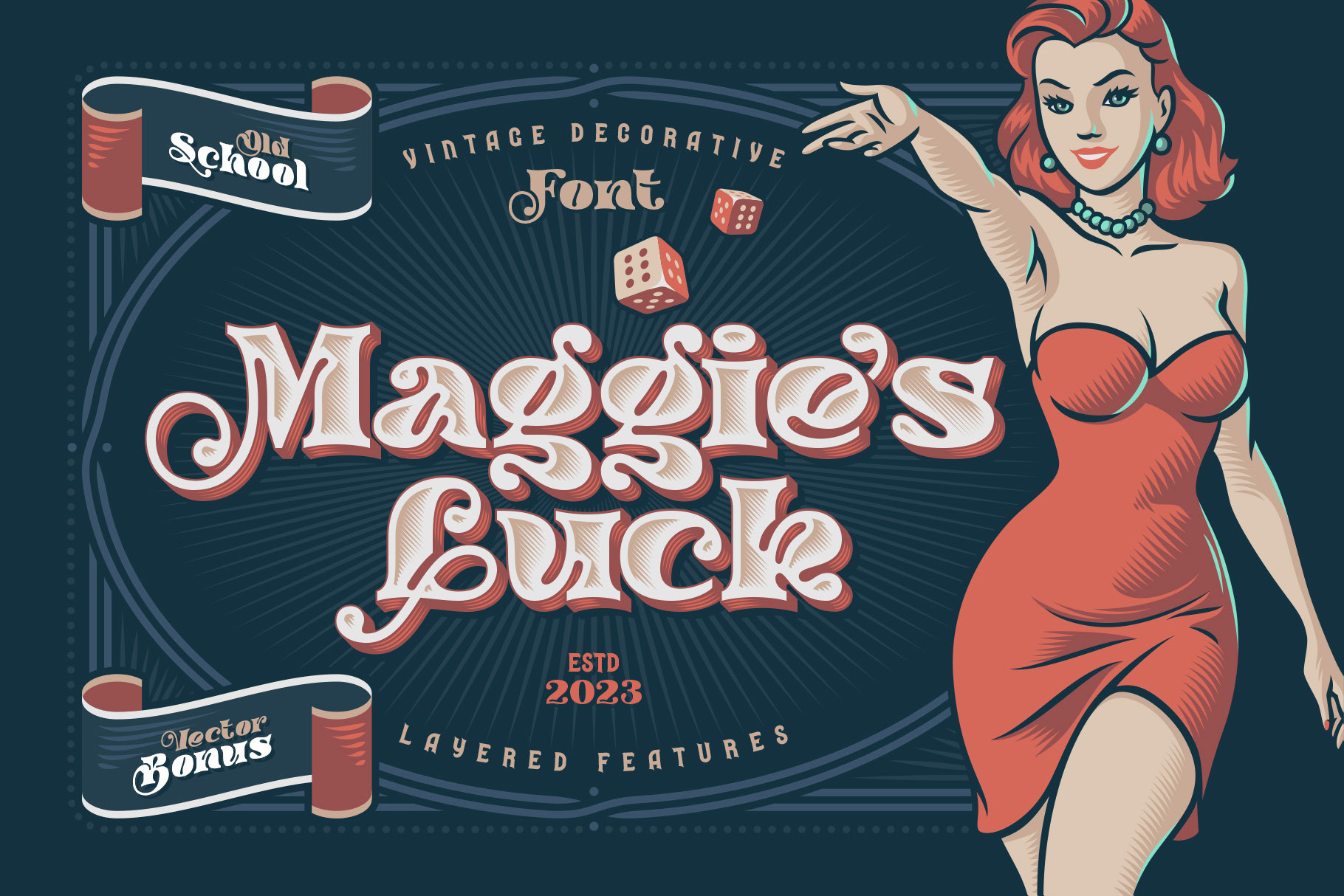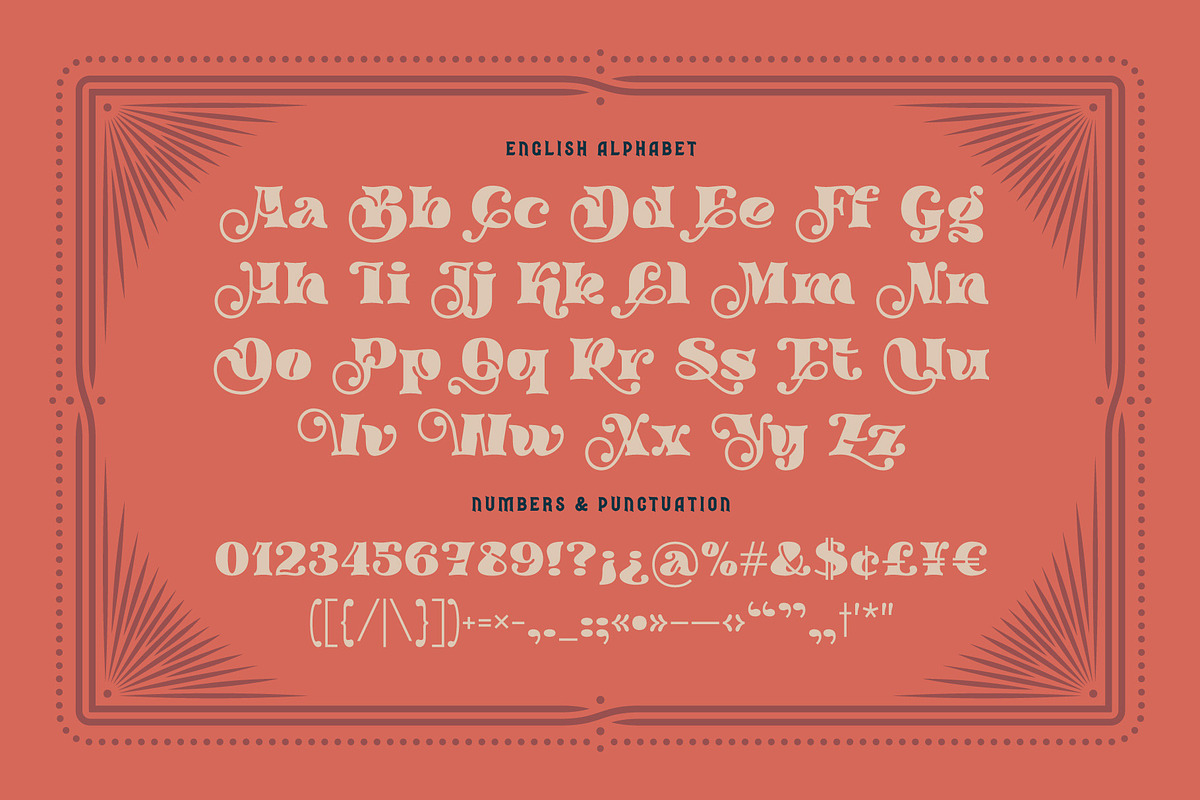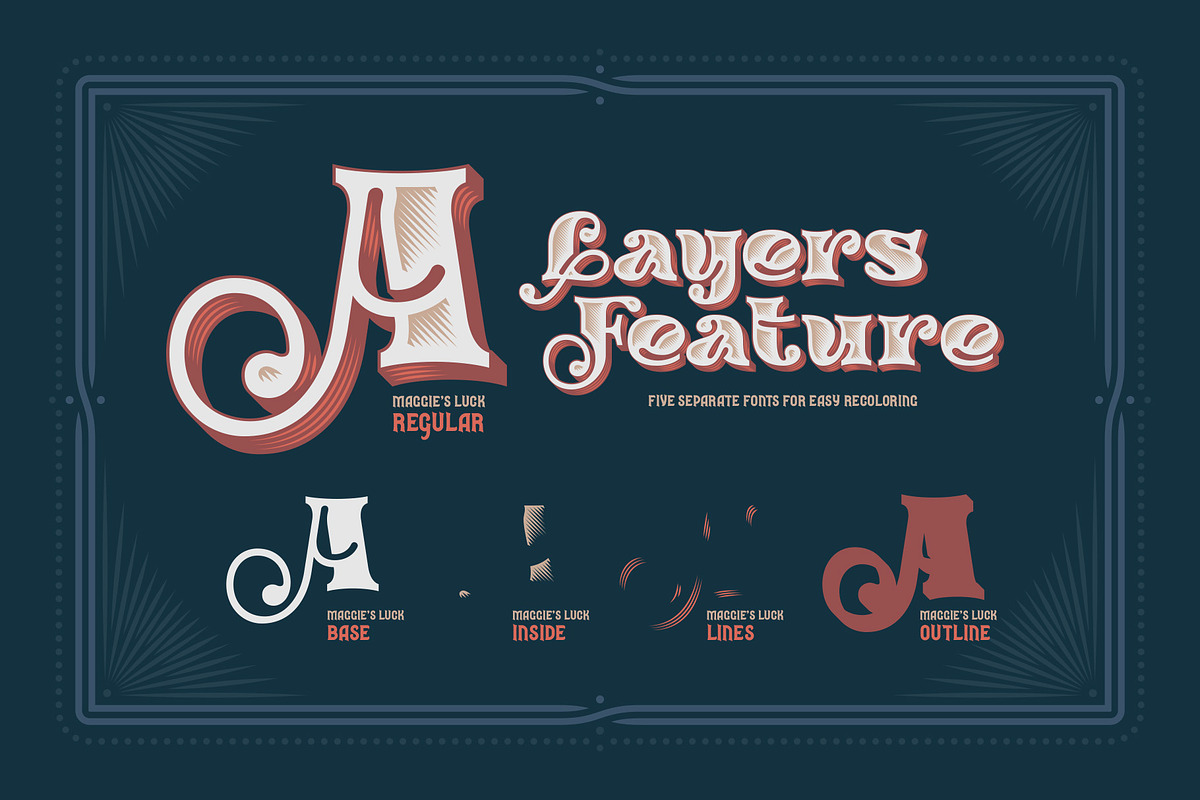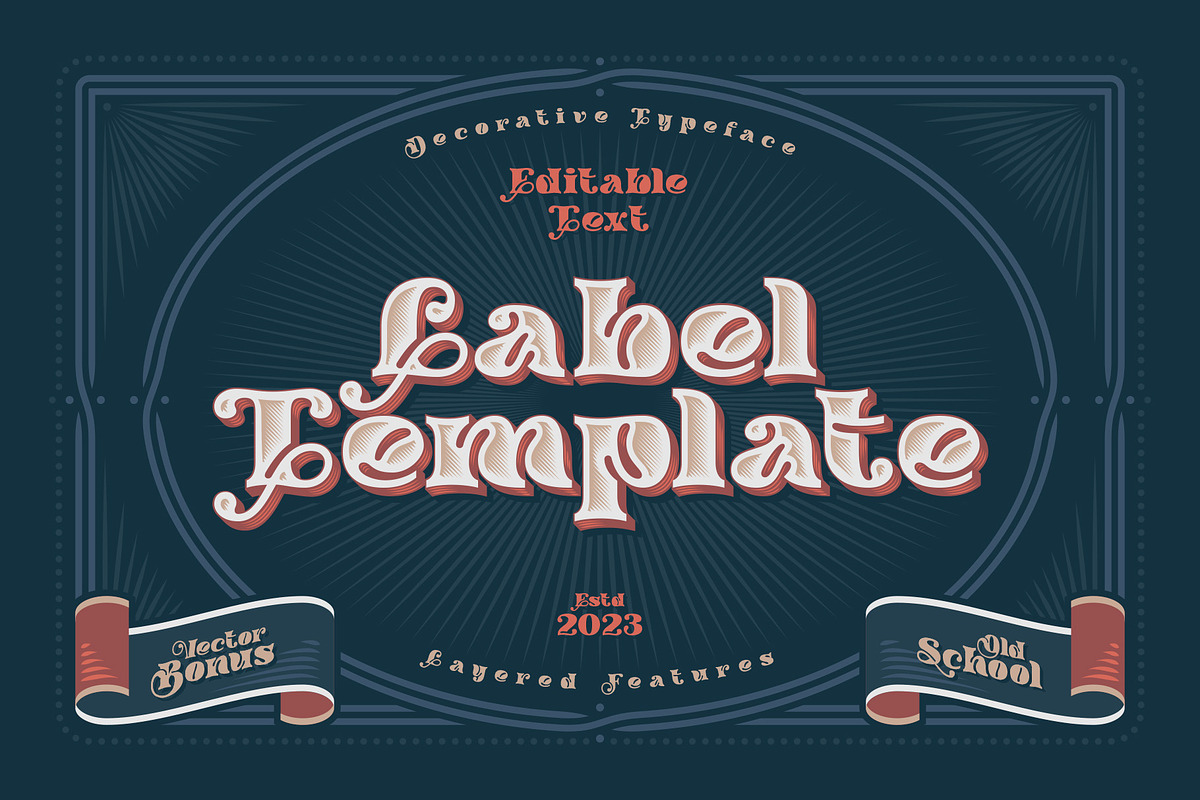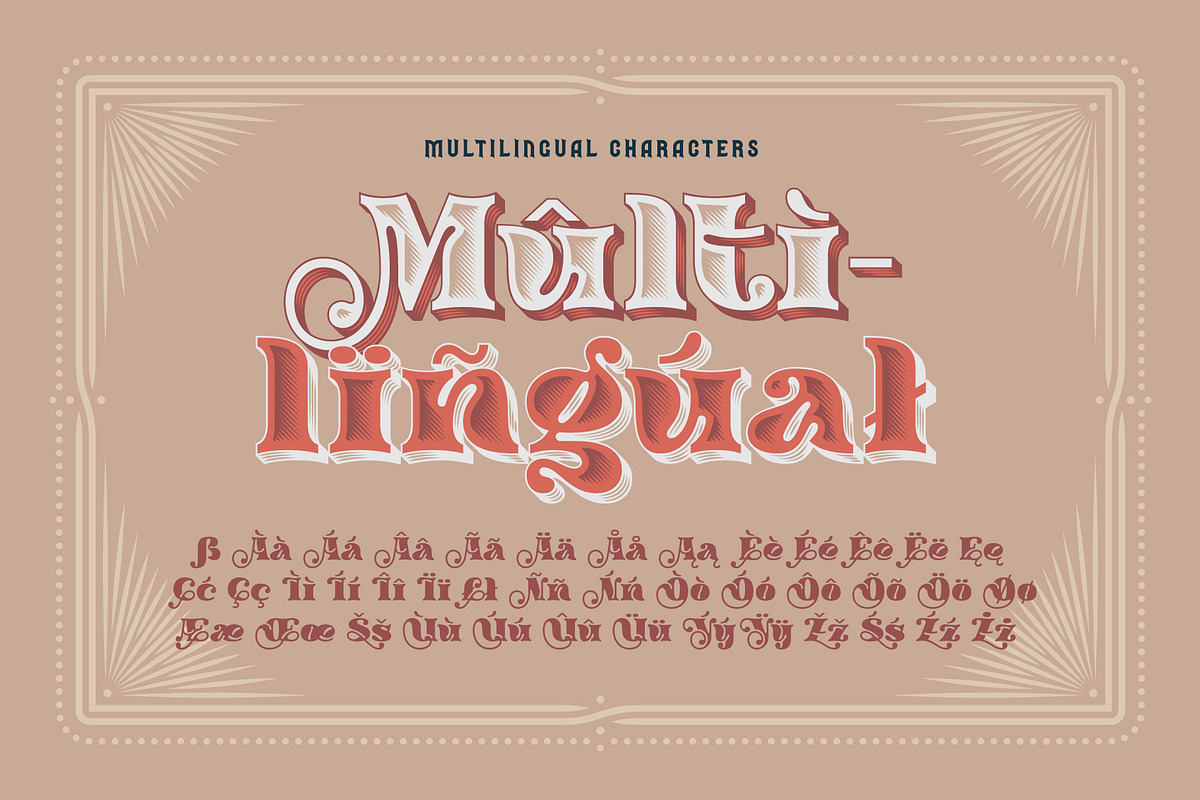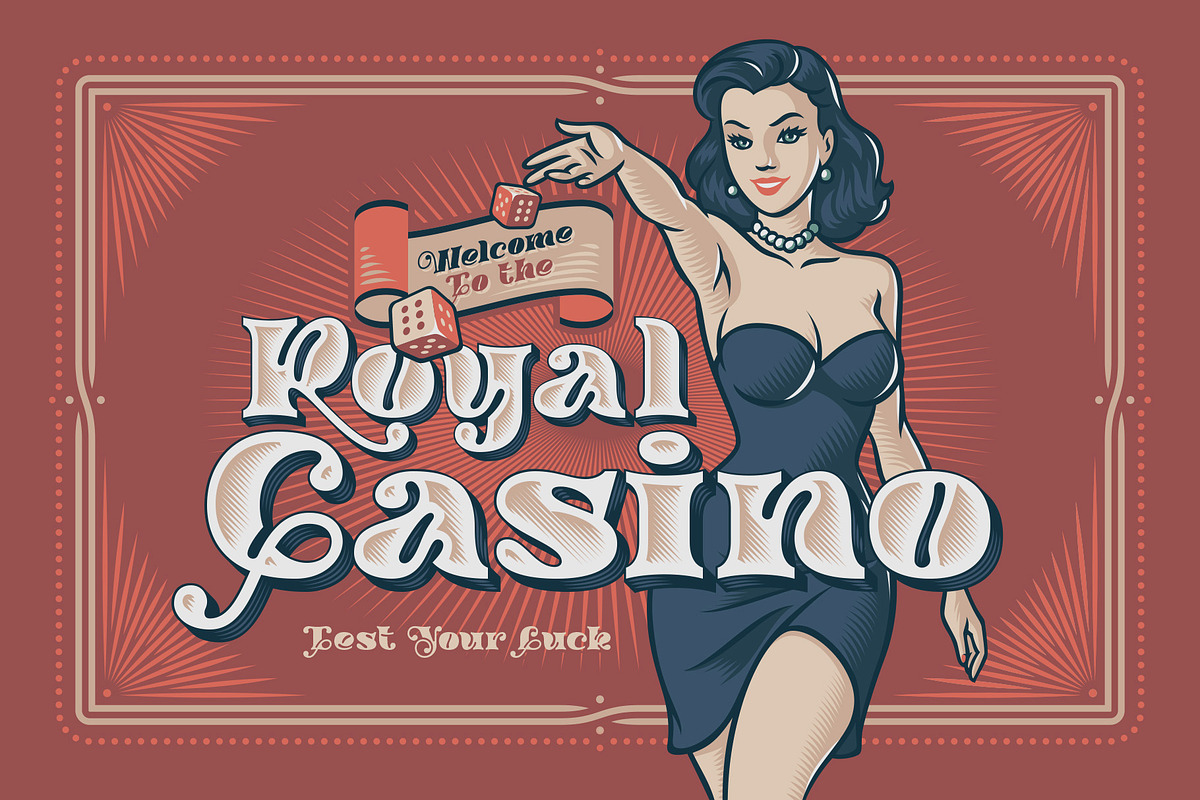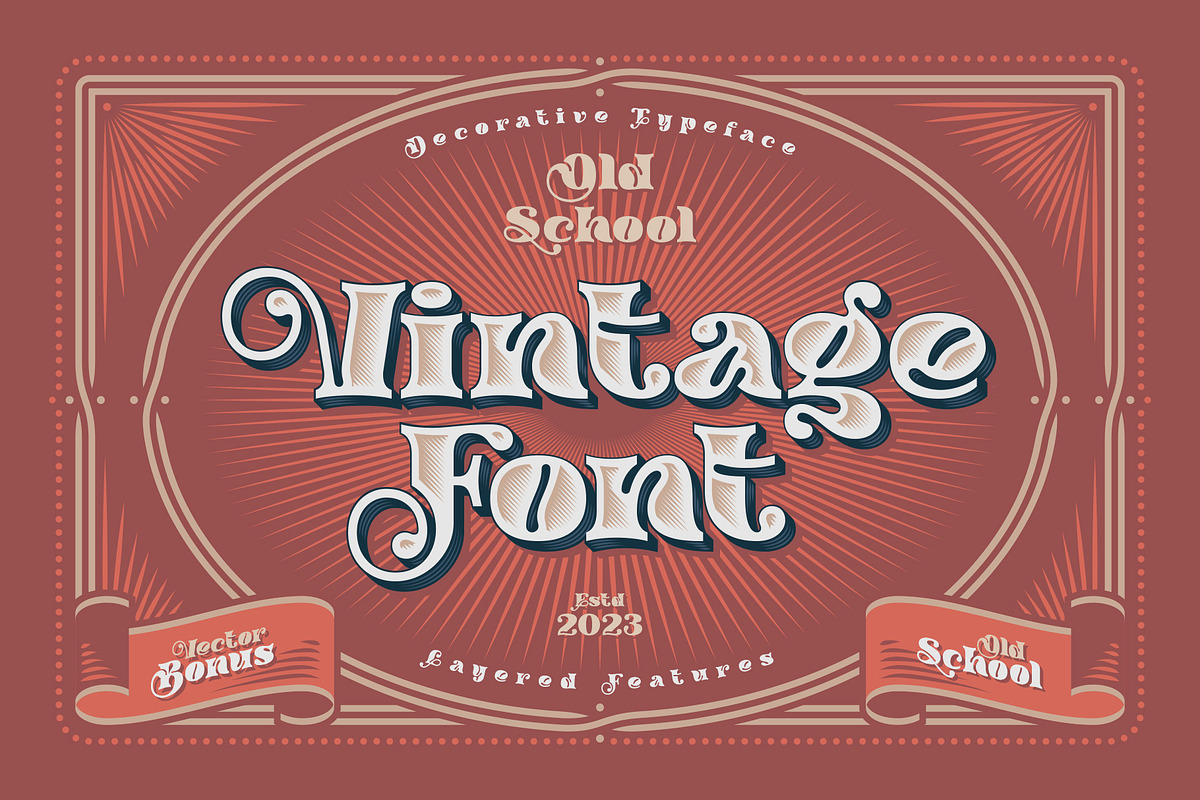
Maggie's Luck - Layered Display Font
Hello! Introducing a layered display font — Maggie's Luck. It's a vintage style bold typeface with layered features. Maggie's Luck Font has five "fonts-layers" for more convenient recoloring. This font has multilingual support (check out a screenshot with available letters and signs).